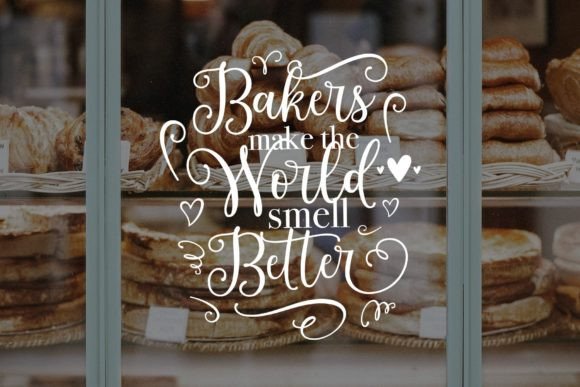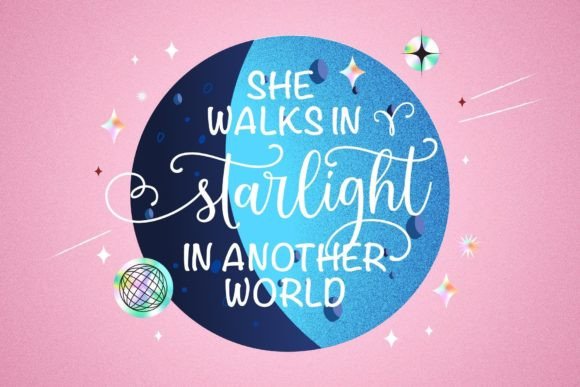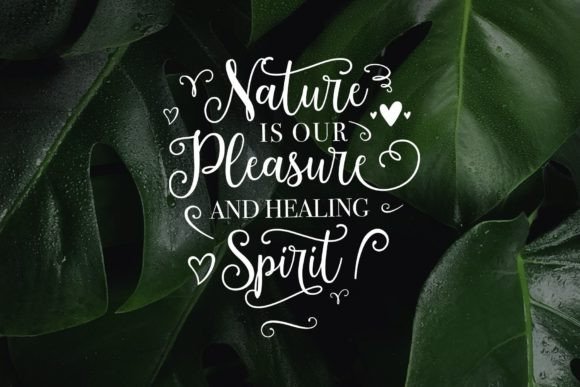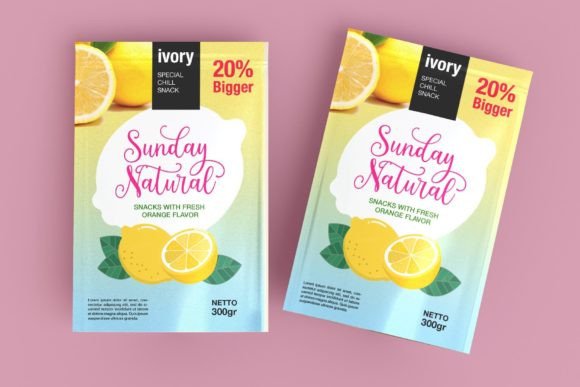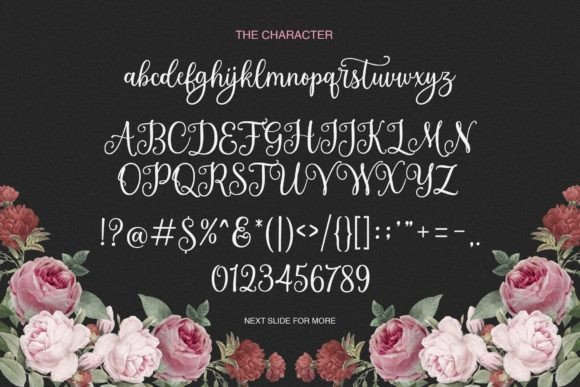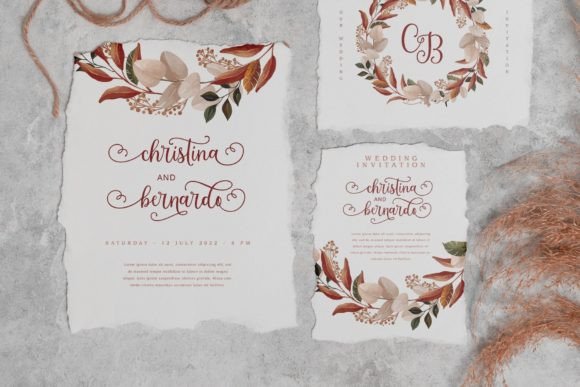
Introduction to Montgova Font
Have you ever been browsing through a beautiful wedding invitation or a stunning greeting card, and wondered what makes the text so elegant and eye-catching? For designers, finding the perfect font to elevate a creative project can be a challenge, but what if we told you that there’s a new design resource that’s about to become your go-to? Say hello to Montgova Font, a lovely elegant calligraphy with adorable ornaments that’s sure to add a touch of sophistication to any project.
As a designer, you know the importance of using high-quality fonts to convey your message and make your work stand out. With Montgova Font, you’ll have access to a delicate modern calligraphy script that’s perfect for a wide range of creative projects, from weddings and branding to quotes and posters. And the best part? It’s available for free download, making it a valuable addition to your design arsenal.
Honest Review: Montgova Font
As a designer, I’m always on the lookout for high-quality design resources to elevate my creative projects. The Montgova Font caught my eye with its sleek, modern aesthetic and free download option – a rare find in the world of typography.
- ✨ Versatile font styles: Montgova Font offers a range of styles, from light to bold, making it suitable for various design applications.
- ✨ Transparent background: This feature allows for seamless integration with images or other design elements, giving my designs a clean and polished look.
- ⚠️ Limited language support: Montgova Font seems to be primarily designed for Latin-based languages, which might be a drawback for designers working on multilingual projects.
- ⚠️ Not ideal for tiny text: The font’s design, while beautiful, can make text appear blurry or difficult to read when used at very small sizes.
Overall, I’m impressed with the Montgova Font’s potential as a design resource. While it may not be perfect, its strengths outweigh its weaknesses, making it a valuable addition to my design arsenal.